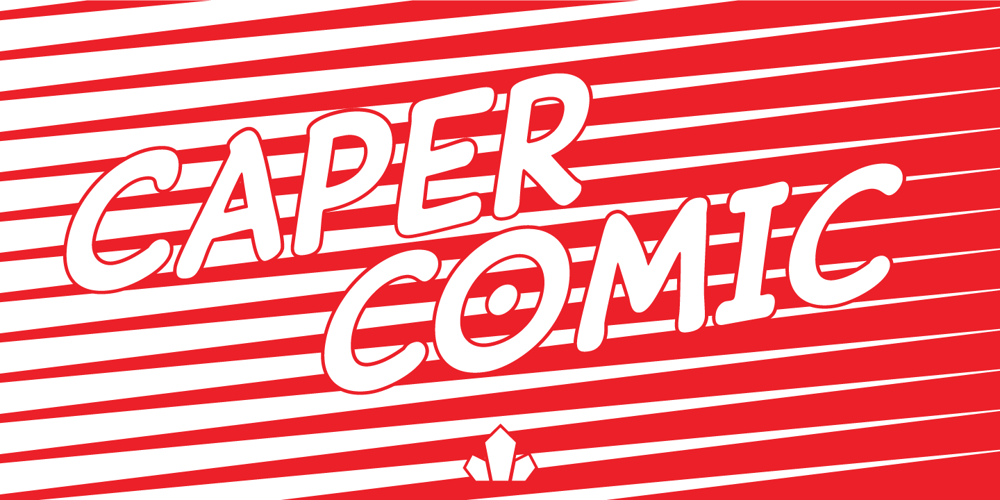
Caper Comic Font Family was designed by Patrick Griffin and published by Canada Type. Caper Comic contains 8 styles and family package options. It seems that once a year, when the weather’s good, Patrick Griffin gets the urge to come up with a new comic book lettering set of fonts. Now the man who brought you the Captain and the Collector offers up his latest, the Caper Comic family. Caper Comic achieves its clarity and legibility as a balloon lettering font by relying on instantly recognizable shapes and very comfortable counters. Carefully and lovingly rounded strokes and connections add an unmistakably organic touch to the friendly hand-lettered forms, magnifying its scalability in real world projects, from smaller than usual text application to larger than life billboard grabber. Caper Comic comes in an affordable package of four fonts. It is available in all popular font formats, and supports a very wide range of Latin-based languages, including Central and Eastern European sets, Turkish, Baltic, and Celtic/Welsh.